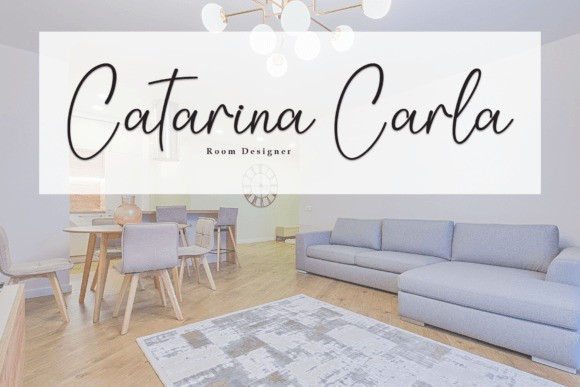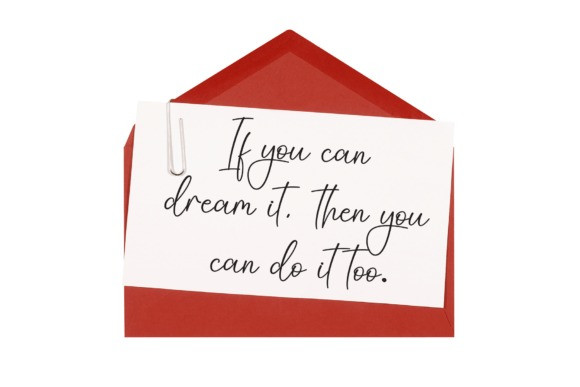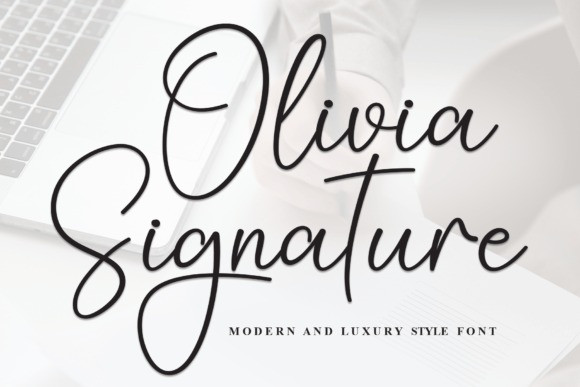
Olivia Signature Font
Olivia Signature Font, your passport to elegance and sophistication. This luxury script font effortlessly adds a touch of class to your projects. With its graceful curves and refined strokes, Olivia Signature brings a sense of timeless beauty to your designs. Perfect for upscale events, invitations, or any project where a touch of luxury is desired. Elevate your typography and make a statement with the understated opulence of Olivia Signature.